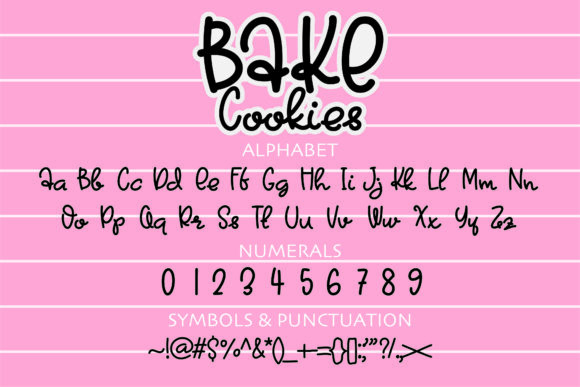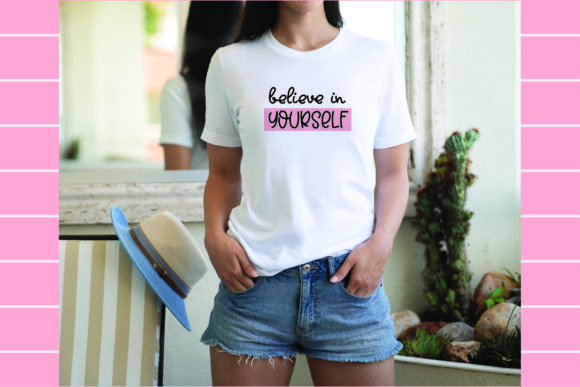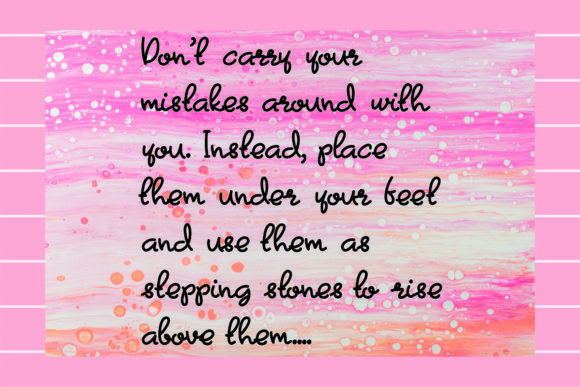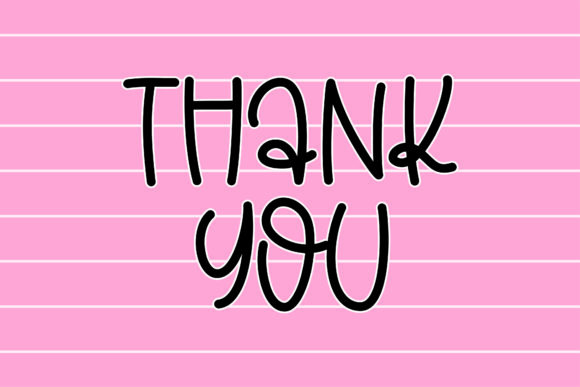
Bake Cookies Font
About Bake Cookies Font
Bake Cookies is a cute and simple lettered handwritten font. It can easily be matched to an incredibly large set of projects, so add it to your creative ideas and notice how it makes them stand out!